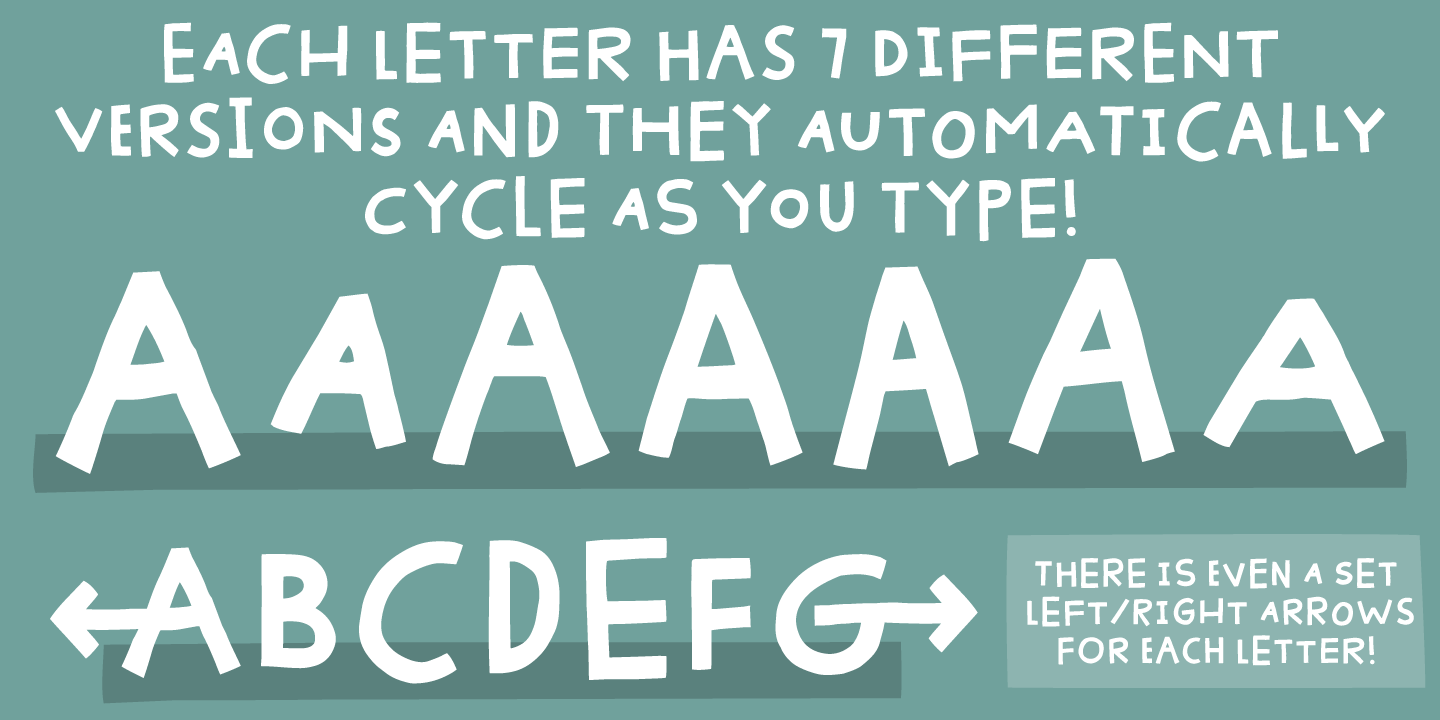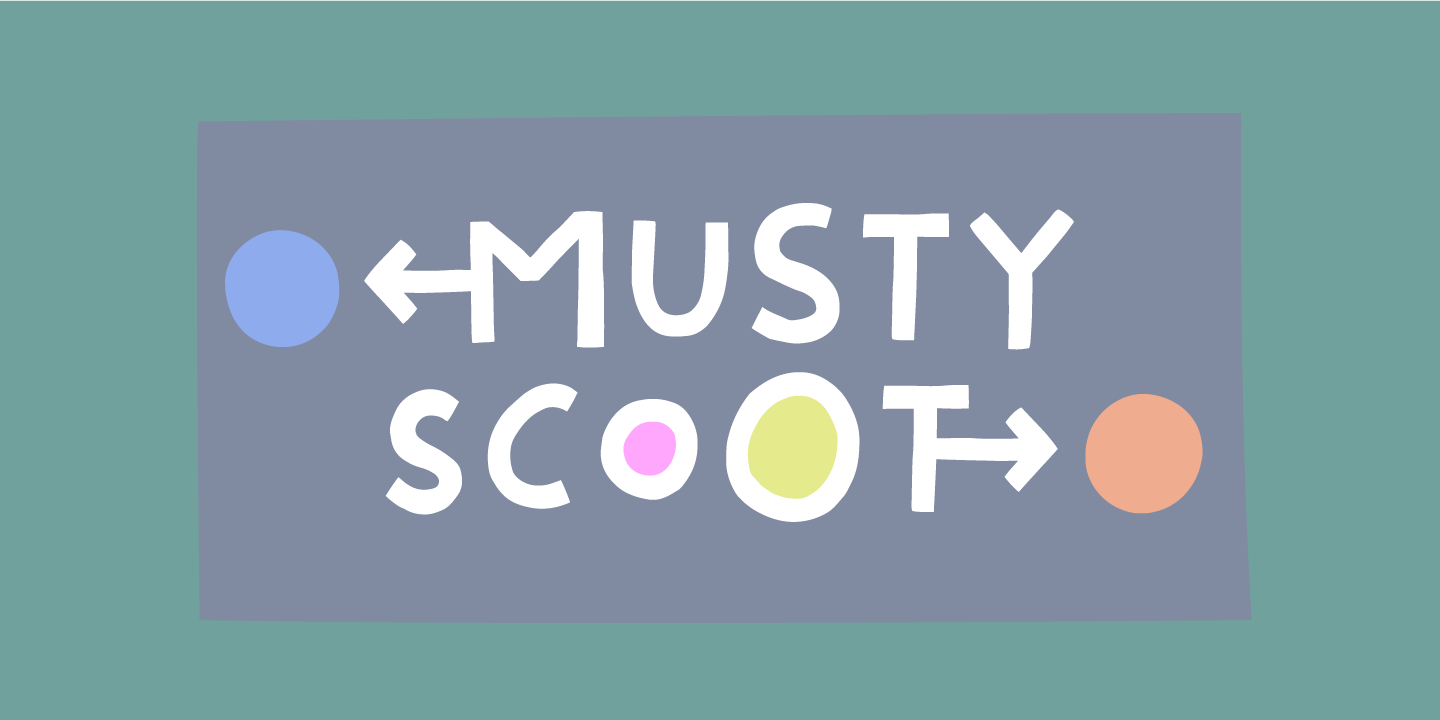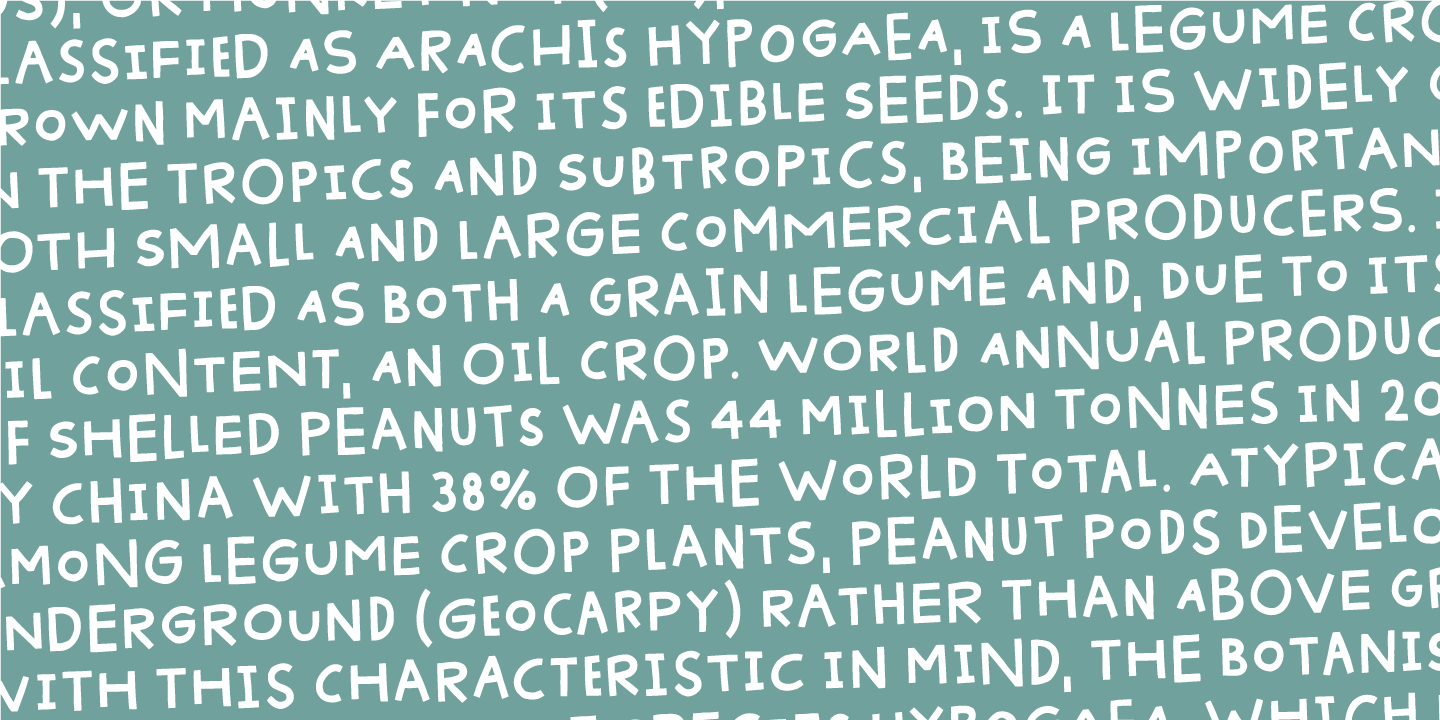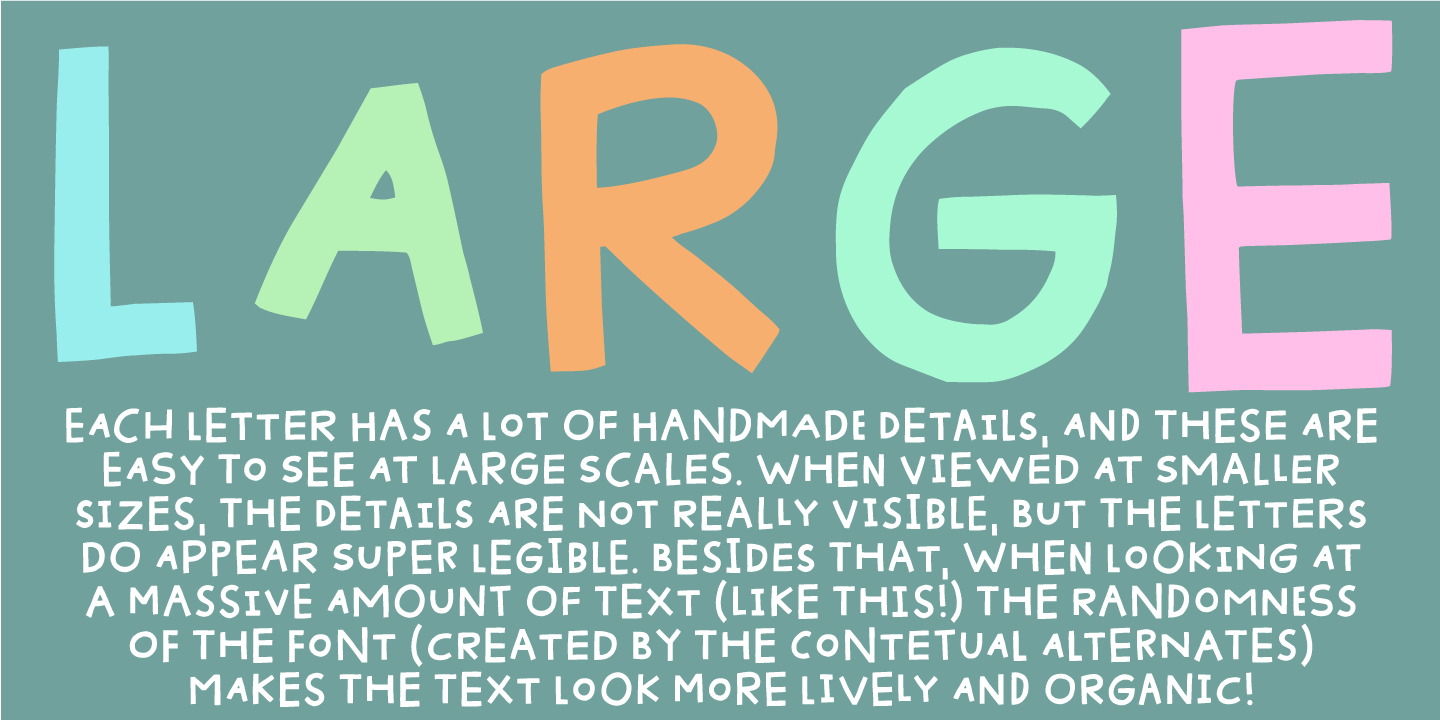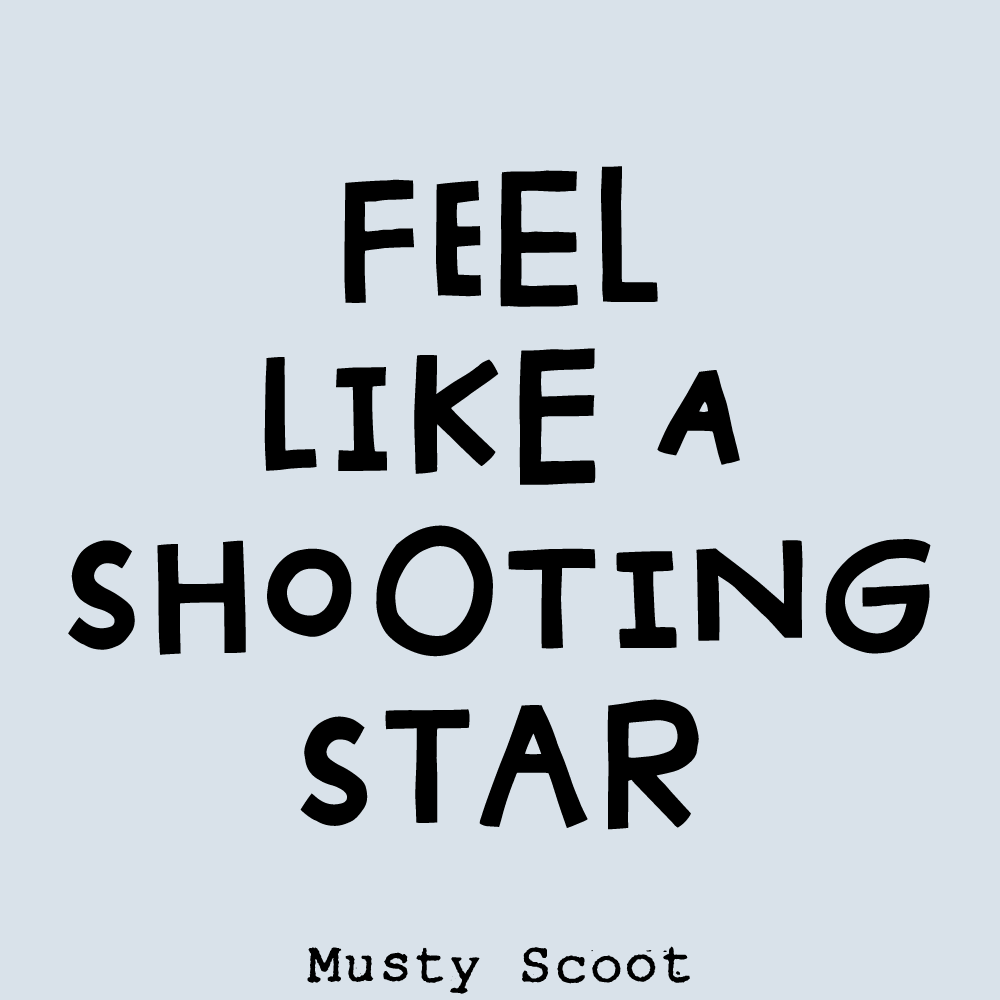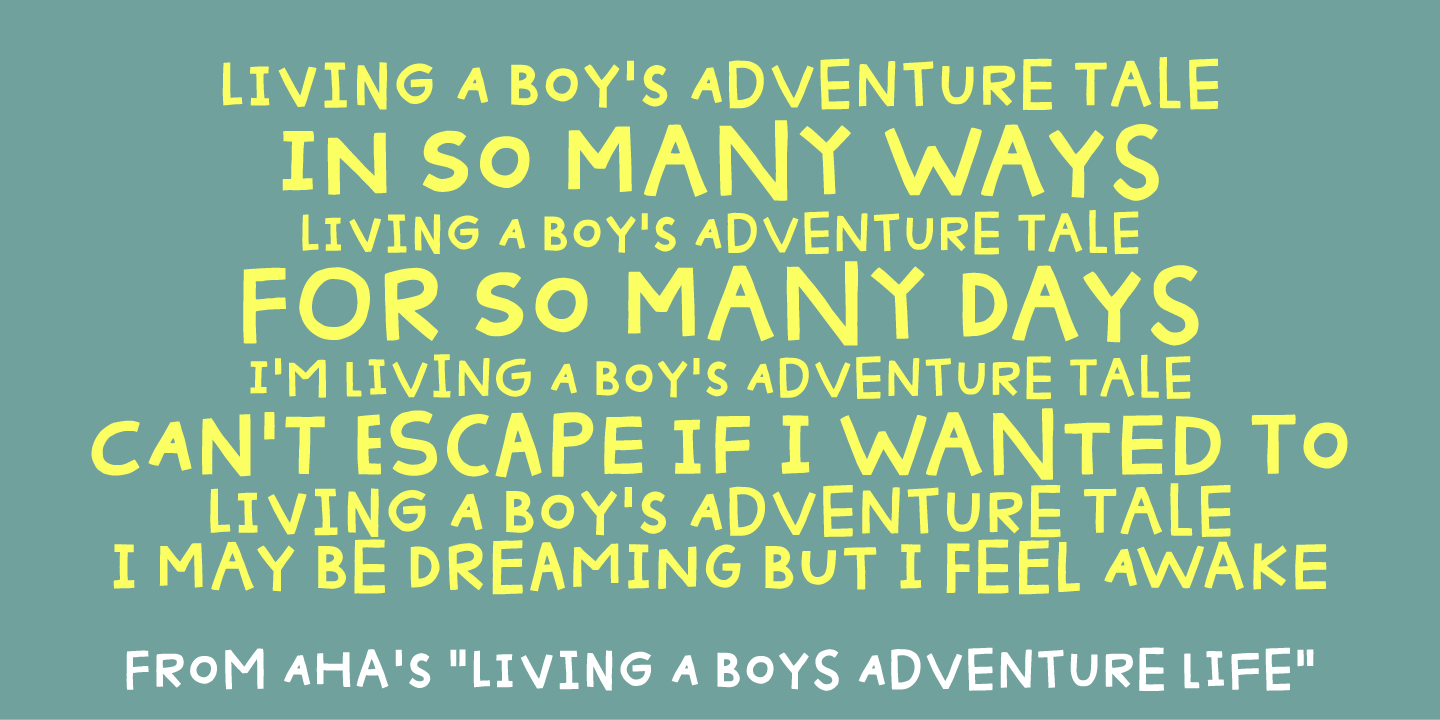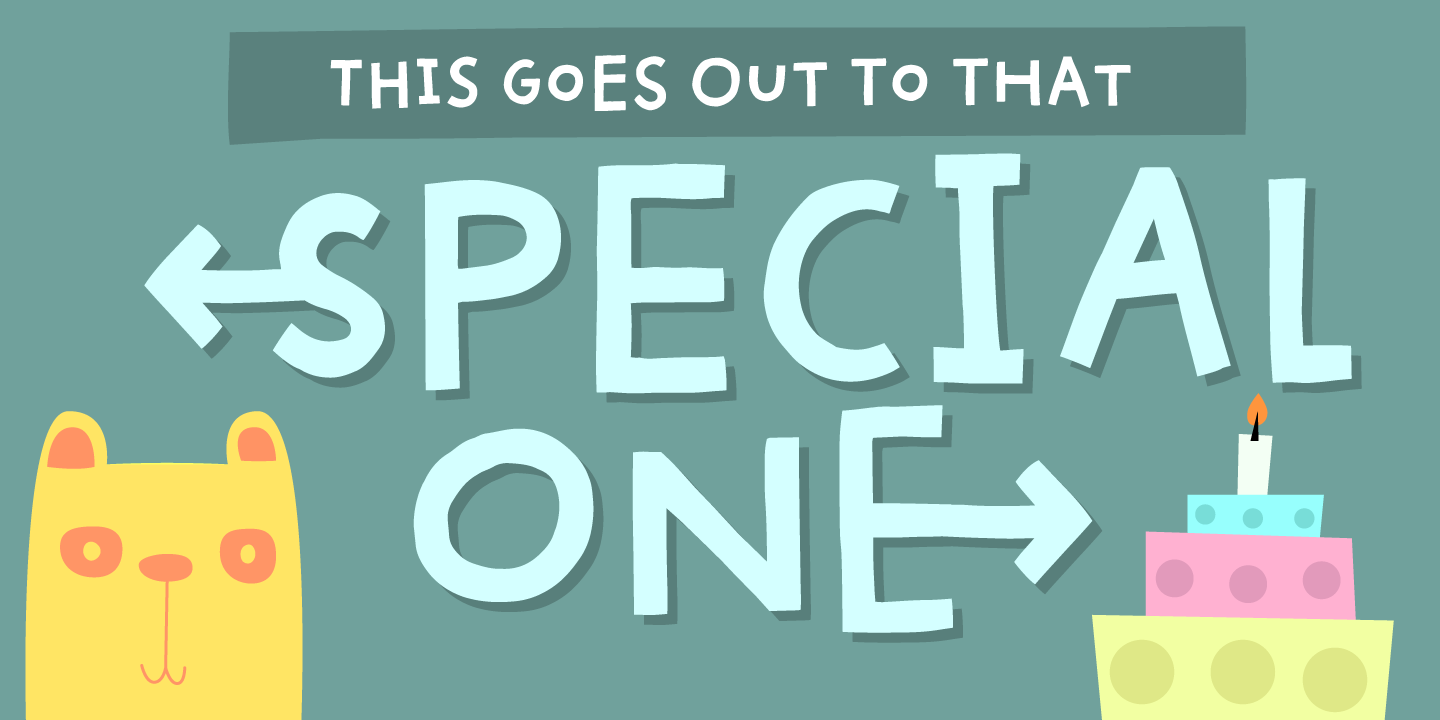
Musty Scoot
Got a pair of jeans that goes well with both party and casual living? A shirt that would fit well to a Hollywood movie premiere and would be suitable to pick up the kids from the kindergarten? If so, you know exactly what I mean, when I say that the Musty Scoot font is suitable for anything! Well, almost anything…maybe not that highway sign, or that security sign at the airport!!! But suitable for anything for children, toys, adventures, handcraft, invitation, restaurants, playgrounds, libraries…etc etc
Each letter has 7 slightly different versions, which automatically cycles as you type. There is even a version of right/left sided arrow to choose from!